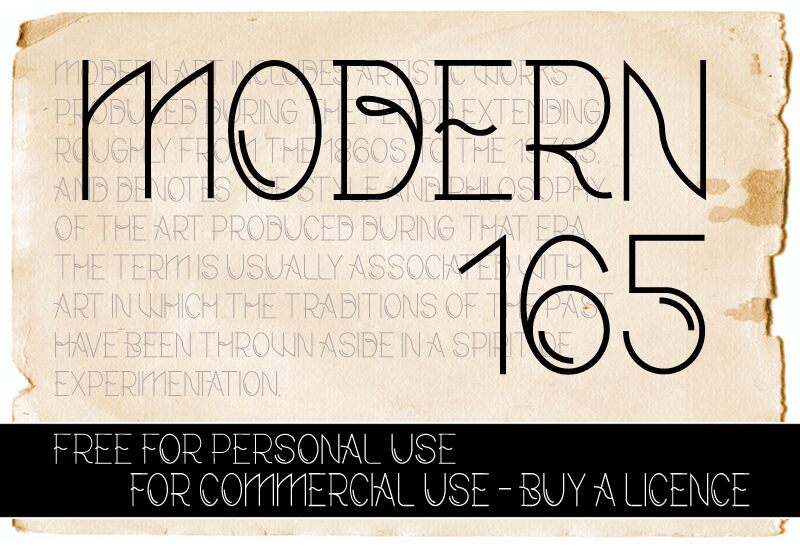
CF Modern 165 by CloutierFontes is a free retro display font with tall, fine-lined letters and a machine-age silhouette. Broad arcs, sharp peaks, and looping cross strokes turn forms into spare geometric drawings.
A poster is its most convincing setting, especially for fashion shows, exhibitions, or albums with an Art Deco slant. The narrow strokes and dramatic curves suit boutique branding and album artwork, where the lettering can supply a period cue. There, the letters can become a border or emblem, not just type.
CF Modern 165
CF Modern 165 Regular is a font by CloutierFontes, designed by Steve Cloutier in 2013.